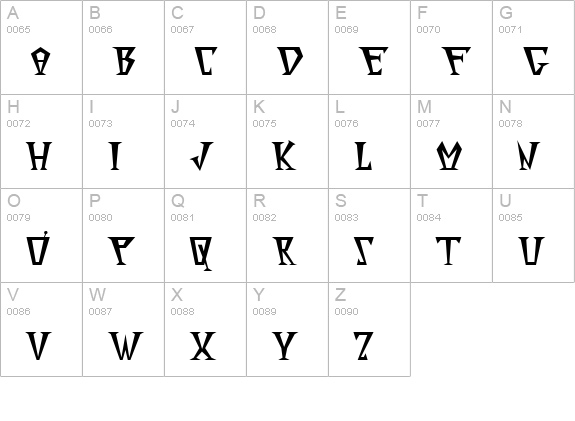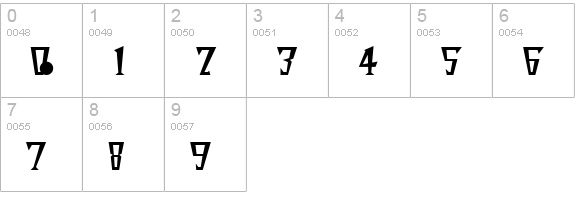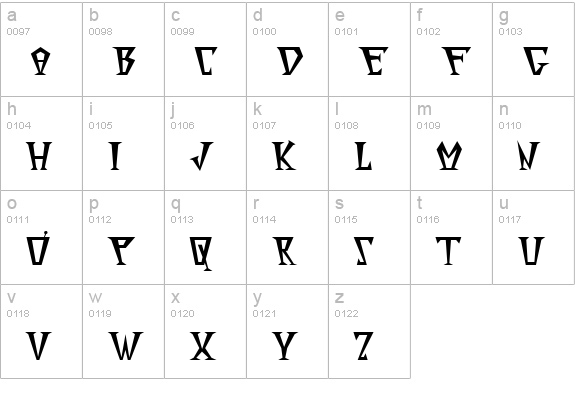
Surfin'ta Mars Font Details
Surfin'ta Mars font captures the adventurous spirit of surfing on the Martian dunes with its bold, quirky design. This playful and eye-catching font is perfect for adding a touch of fun to your projects, whether you're creating posters, logos, or social media graphics. What sets Surfin'ta Mars font apart is its unique blend of futuristic elements and retro charm, making it a versatile choice for both modern and vintage-inspired designs. The clean lines and distinct characters make this font stand out, ensuring that your text will always make a statement. Best of all, Surfin'ta Mars font is available for free download at FontsMarket.com, so you can start using it in your projects right away. Don't miss out on this exciting and dynamic font that is sure to bring a sense of adventure to your creative endeavors.